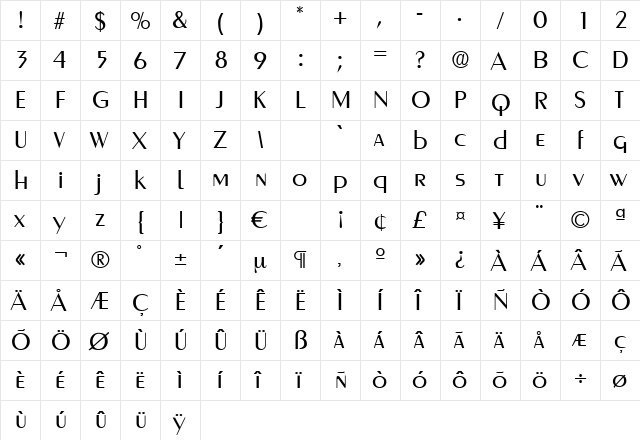
GreyhoundRegular Regular
Design Context for GreyhoundRegular Typeface
GreyhoundRegular is a composed and adaptable typeface that performs quietly and consistently across a wide range of design contexts.